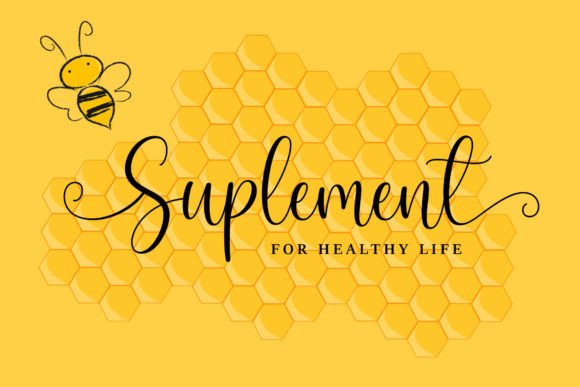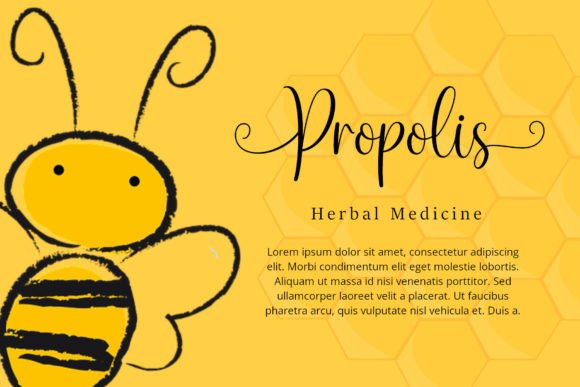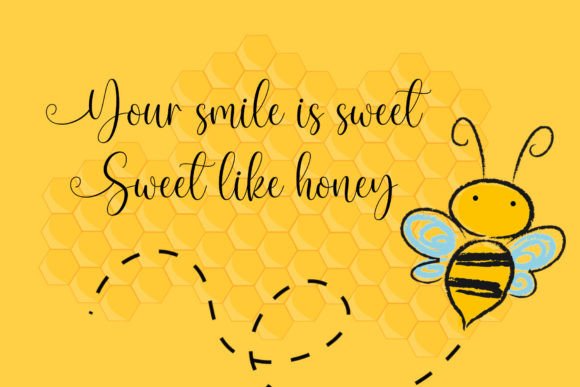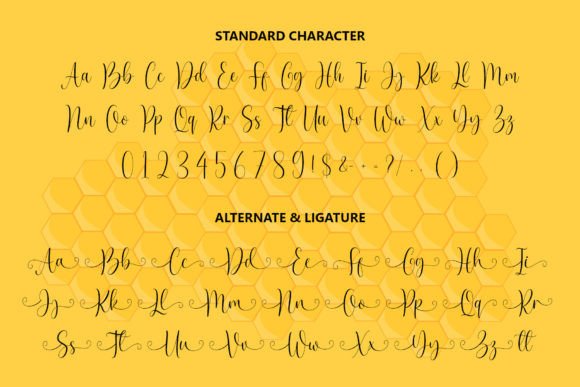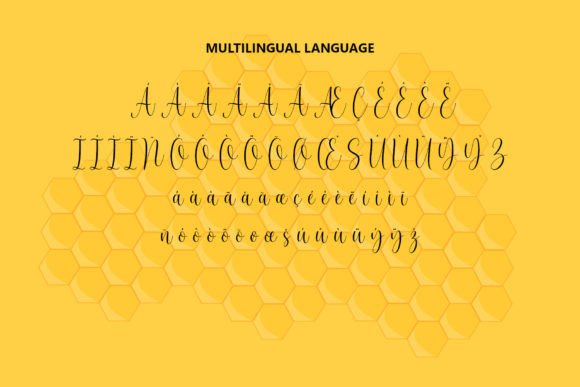
Honey Sweety Font
Honey Sweety Font: Adorable Script for Charming Designs
“Honey Sweety” is a delightful script font that brings sweetness and charm to your designs. It’s perfect for various creative projects, from invitations to product packaging.
Key Features of Honey Sweety Font
• Sweet Style: Honey Sweety adds a playful and warm touch to designs.
• Versatile Use: Suitable for many projects, including greeting cards and branding materials.
• Unique Character: Creates a genuine and endearing feel in your typography.
Invitations and Greeting Cards
Honey Sweety’s adorable style is ideal for creating heartwarming invitations and special occasion cards.
Branding and Packaging
Use Honey Sweety to design charming logo designs and product packaging that conveys warmth and uniqueness.
Quotes and Social Media
The font’s sweet nature makes it perfect for creating engaging quotes and social media graphics.
Why Choose Honey Sweety Font?
Honey Sweety offers more than just cute letters. Here’s why it stands out:
• Enhances overall aesthetics with its genuine sweetness
• Creates a harmonious and captivating atmosphere in designs
• Adapts well to various design themes and creative endeavors
By using Honey Sweety, you open up new design possibilities. Its adorable style works well in many contexts, from wedding stationery to children’s book covers. The font’s ability to convey warmth can inspire creative ideas and help you approach projects from a fresh, heartwarming perspective.
If you’re looking for a font that’s both sweet and versatile, Honey Sweety is an excellent choice. It’s perfect for adding a touch of charm to your work, especially for projects that need a warm, endearing feel.
Explore how Honey Sweety can transform your designs. From branding projects to personal creations, this font brings a delightful and engaging quality to your work.